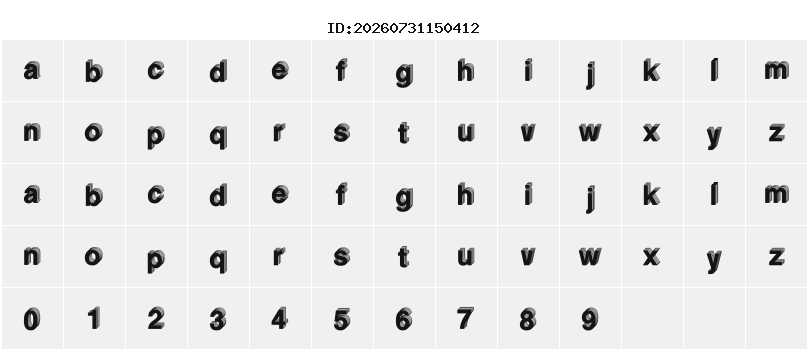
LevelThree Preview
• Font Name: LevelThree
• Full Font Name: LevelThree
About LevelThree.ttf
LevelThree.ttf is a modern, elegant sans-serif font designed for ultimate readability and visual harmony. Perfect for branding, headlines, web design, and print materials.